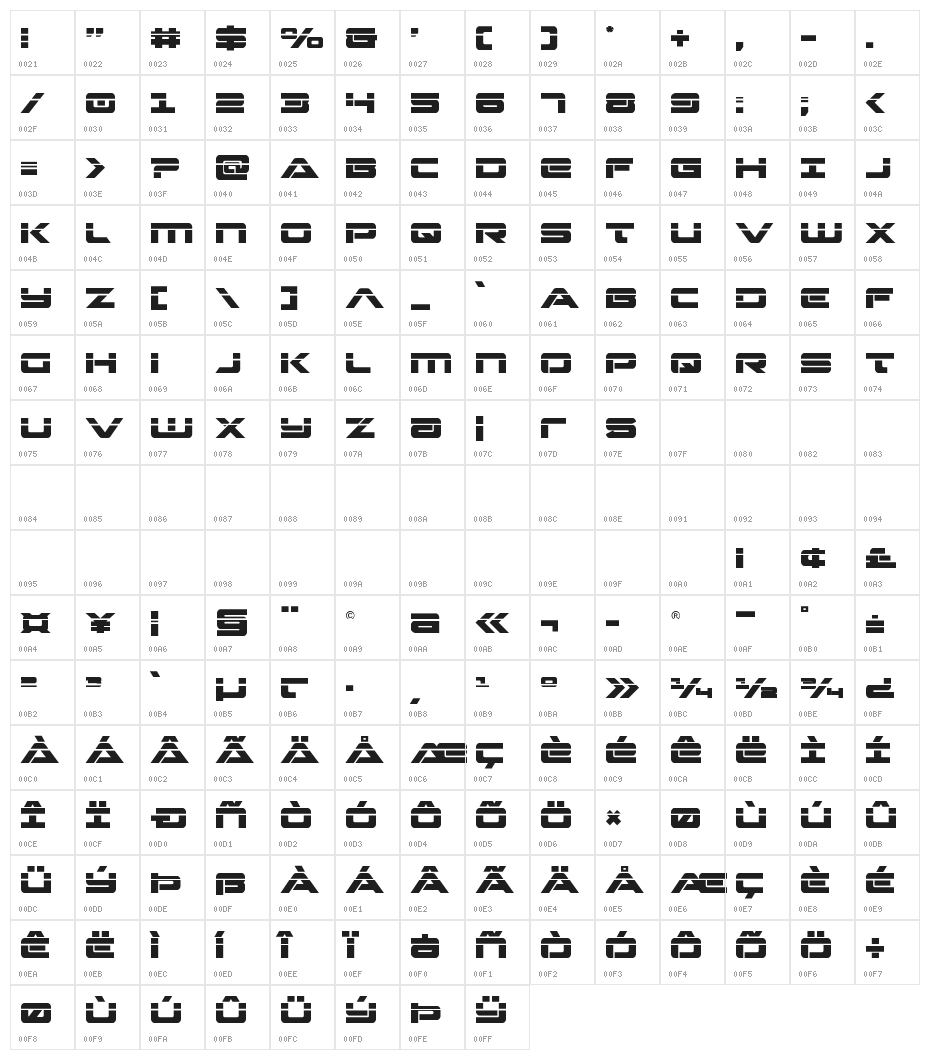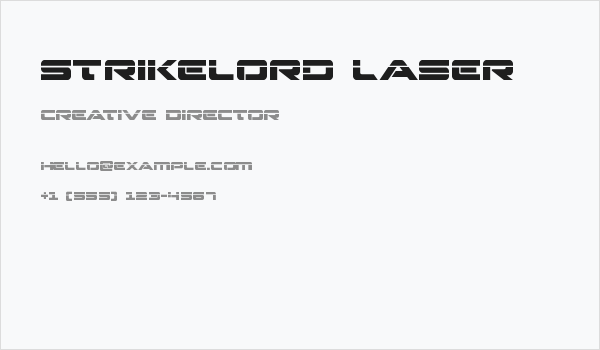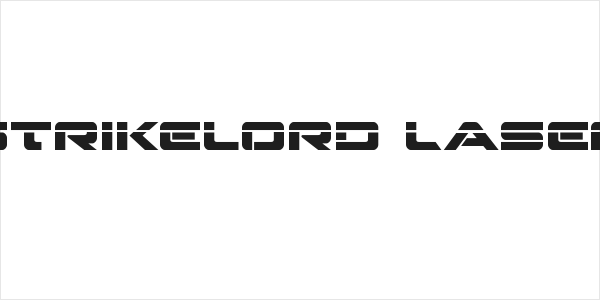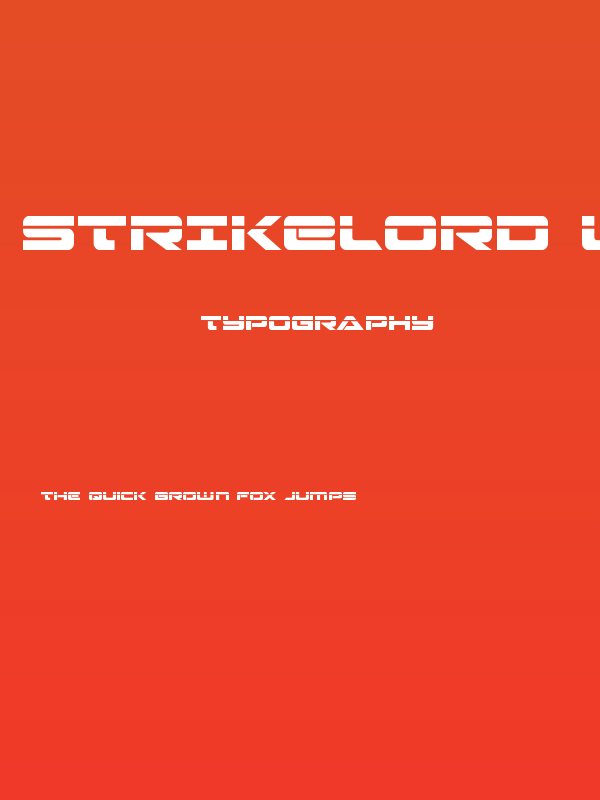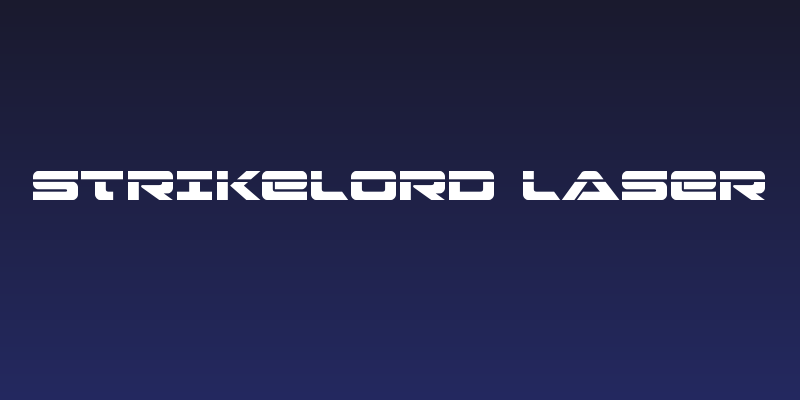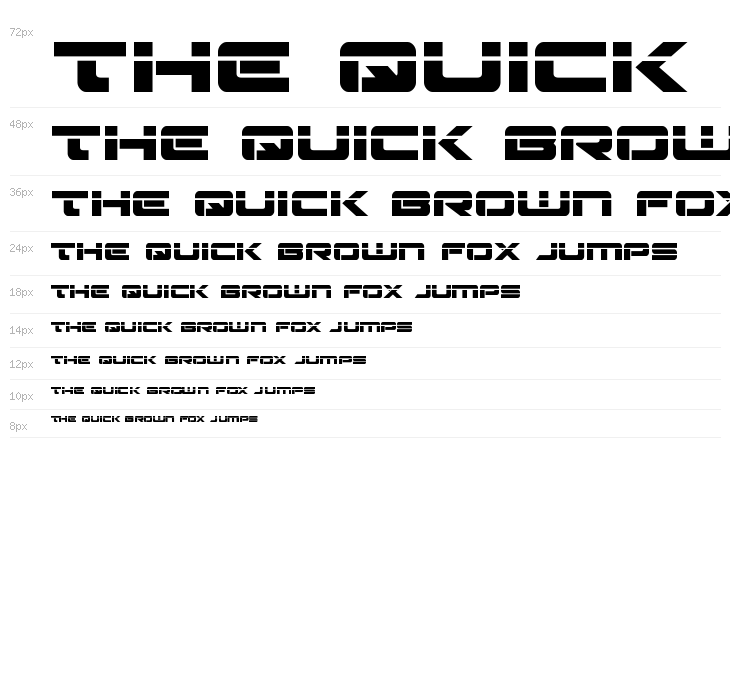
Strikelord Laser Font
Strikelord Laser Description
This font features a futuristic and bold design, characterized by its geometric and angular shapes. The letters are constructed with sharp edges and a blocky appearance, giving it a strong and impactful presence. The style is reminiscent of digital or sci-fi themes, making it ideal for projects that require a modern and technological aesthetic. The uppercase and lowercase letters maintain a consistent design, with slight variations in size and form. Numbers and special characters are also designed to match the overall theme, ensuring a cohesive look across all text elements.
| Proposed Projects | Ideal for sci-fi movie posters, video game titles, tech branding, and digital media. |